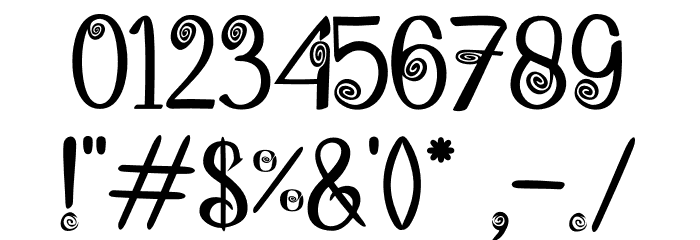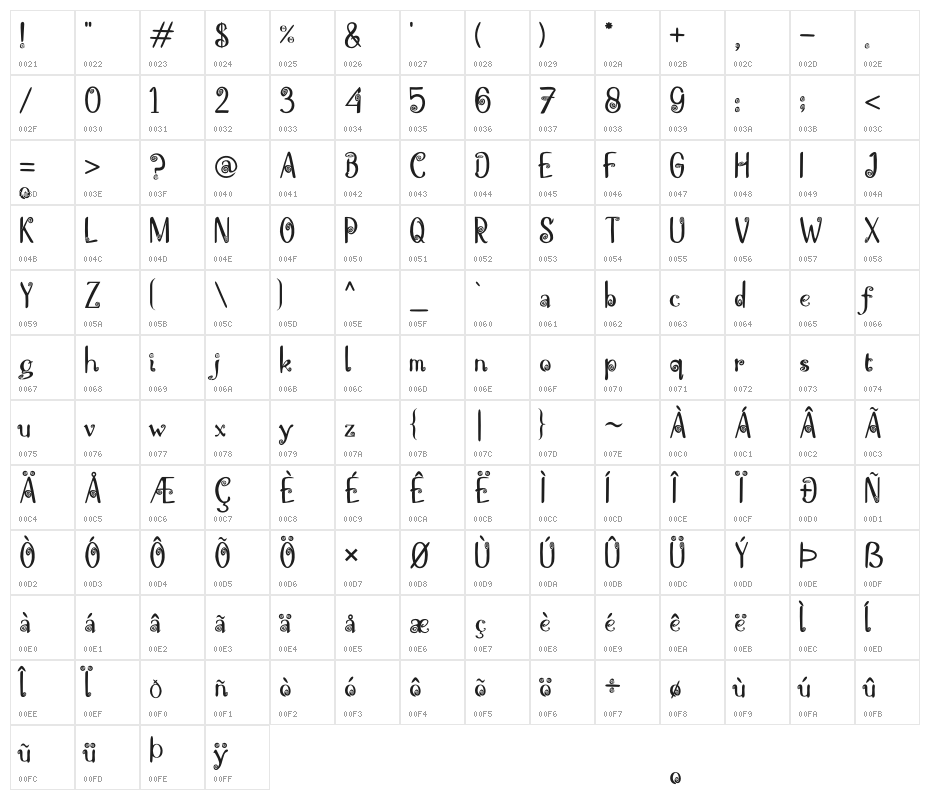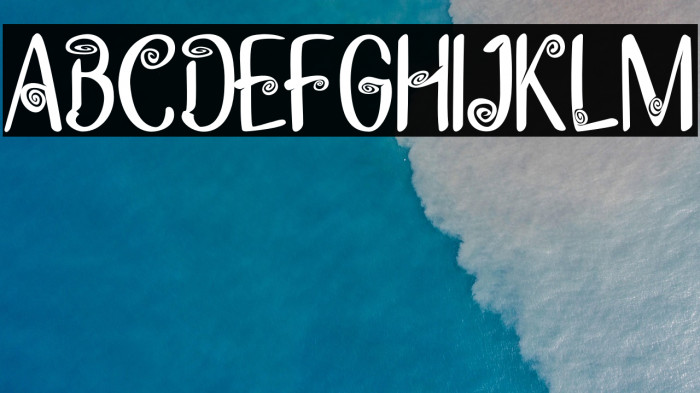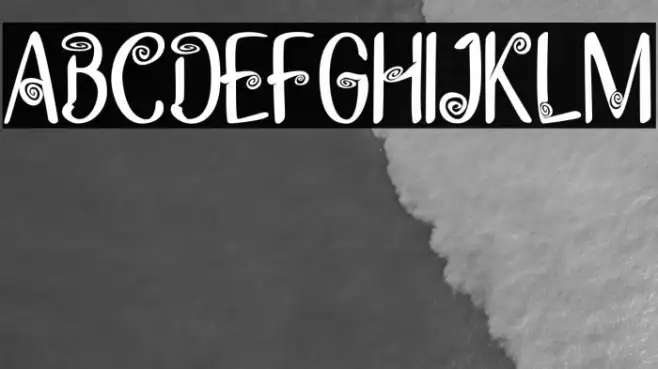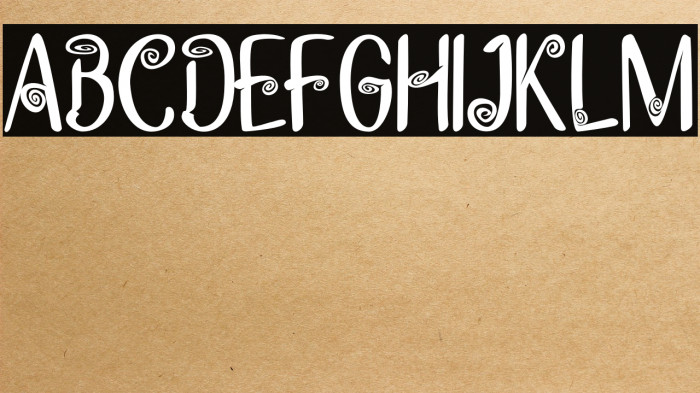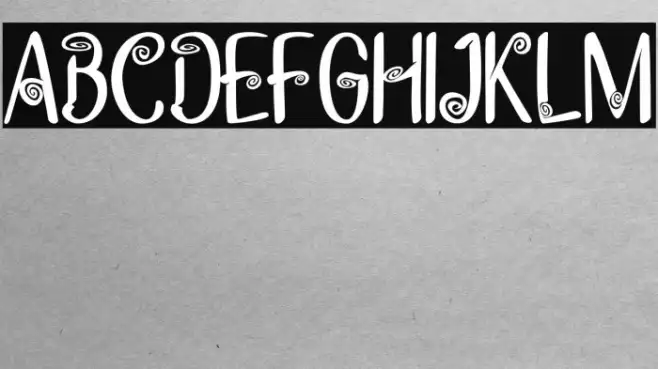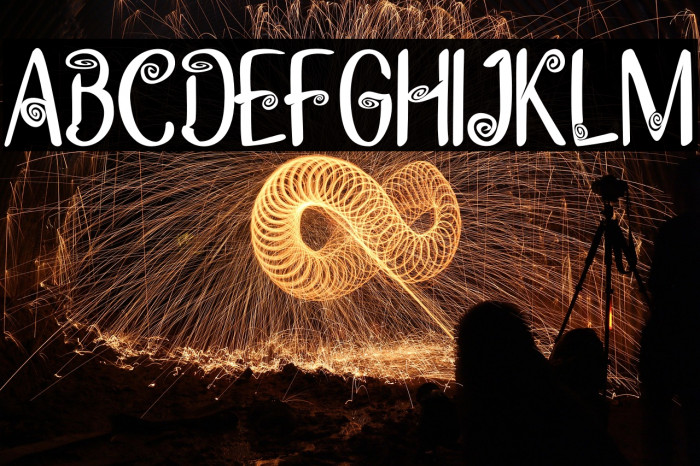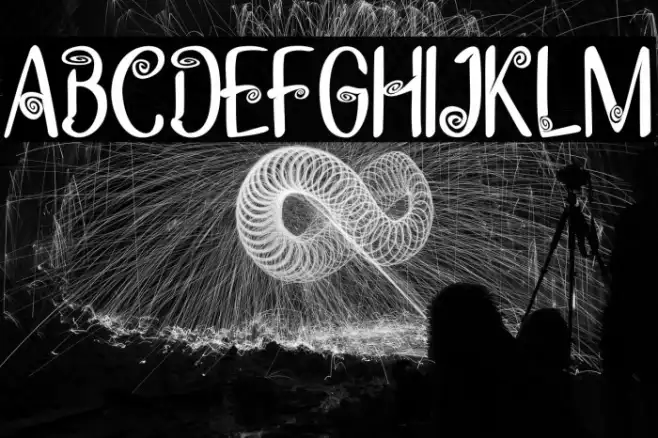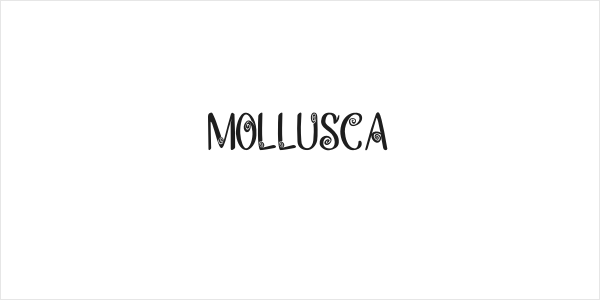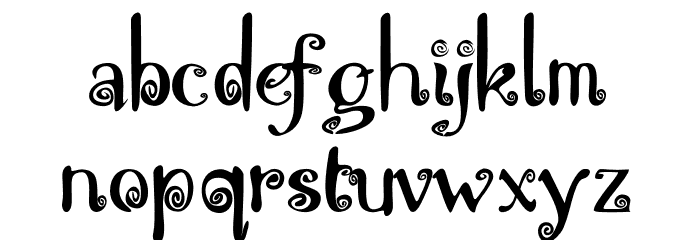
MOLLUSCA Font
MOLLUSCA Description
This font features a whimsical and playful design, characterized by its unique spiral embellishments on each letter. The uppercase and lowercase letters maintain a consistent style, with the spirals adding a decorative flair that makes each character stand out. The numbers and special characters follow the same design principles, ensuring a cohesive look across all glyphs. The font's overall appearance is bold and eye-catching, making it ideal for creative and artistic projects. Its distinct style is reminiscent of a hand-drawn or illustrative approach, adding a touch of fun and creativity to any text.